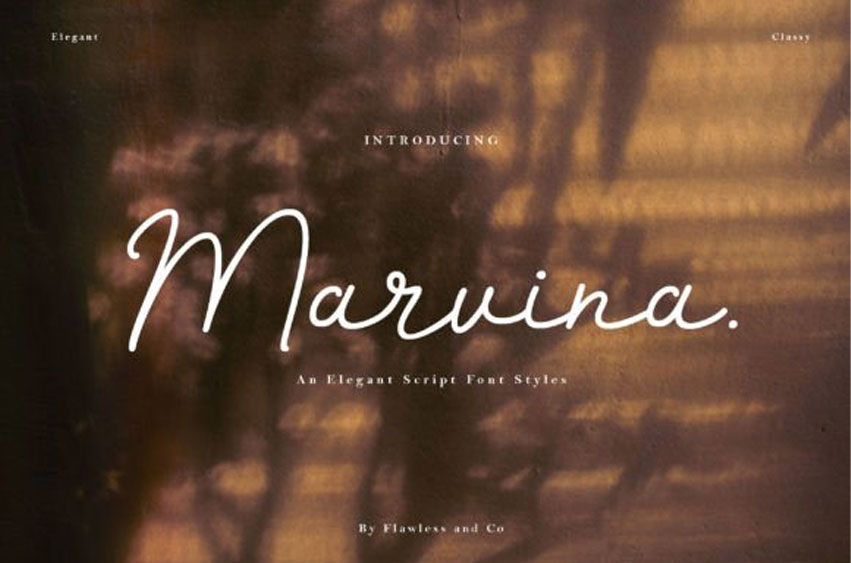
Marvina Font is a handwritten Script Font made with a classy style for each character. This font can be used on your branding display or can be fitted in wedding invitations to give a feel of an elegant and beautiful look.
This font is also suitable for any graphic design: logos, posters, t-shirts, quotes, and more. Just try it!